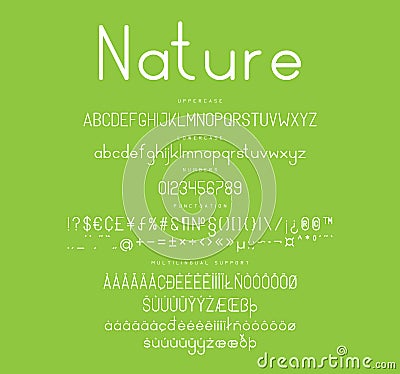
Line display font. Outline alphabet with uppercase, lowercase letters, numbers and multilingual support. #190062352
Line display font. Outline alphabet with uppercase, lowercase letters, numbers and multilingual support. Creative typography letters. Nature type vector design.